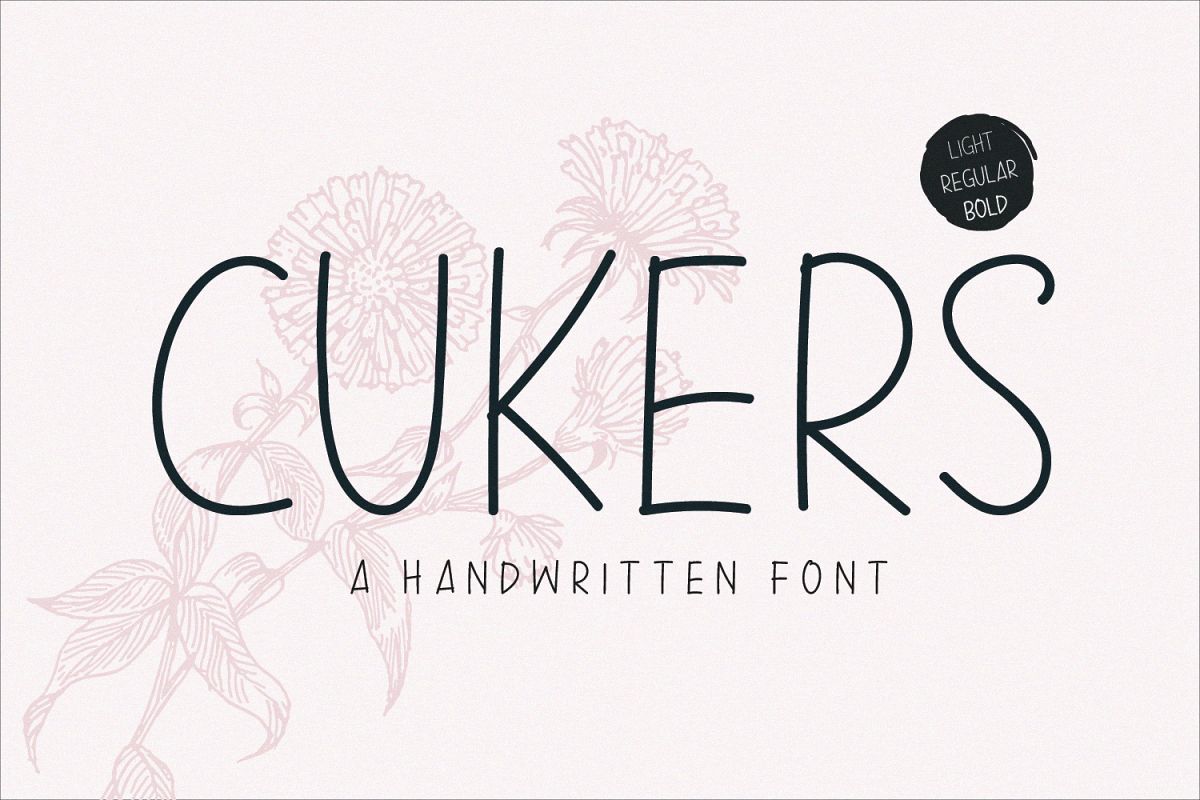
Cukers - A Handwritten Font
Cukers - A hand-drawn sans serif font, every single letter has been carefully crafted to make your text looks beautiful. Available in three styles, light , regular and bold, Cukers is great for a variety of print and digital projects.
1. Cukers - A clean Regular, light and Bold version, sans serif font including upper & lowercase characters (ALL CAPS), numerals and more of symbols.